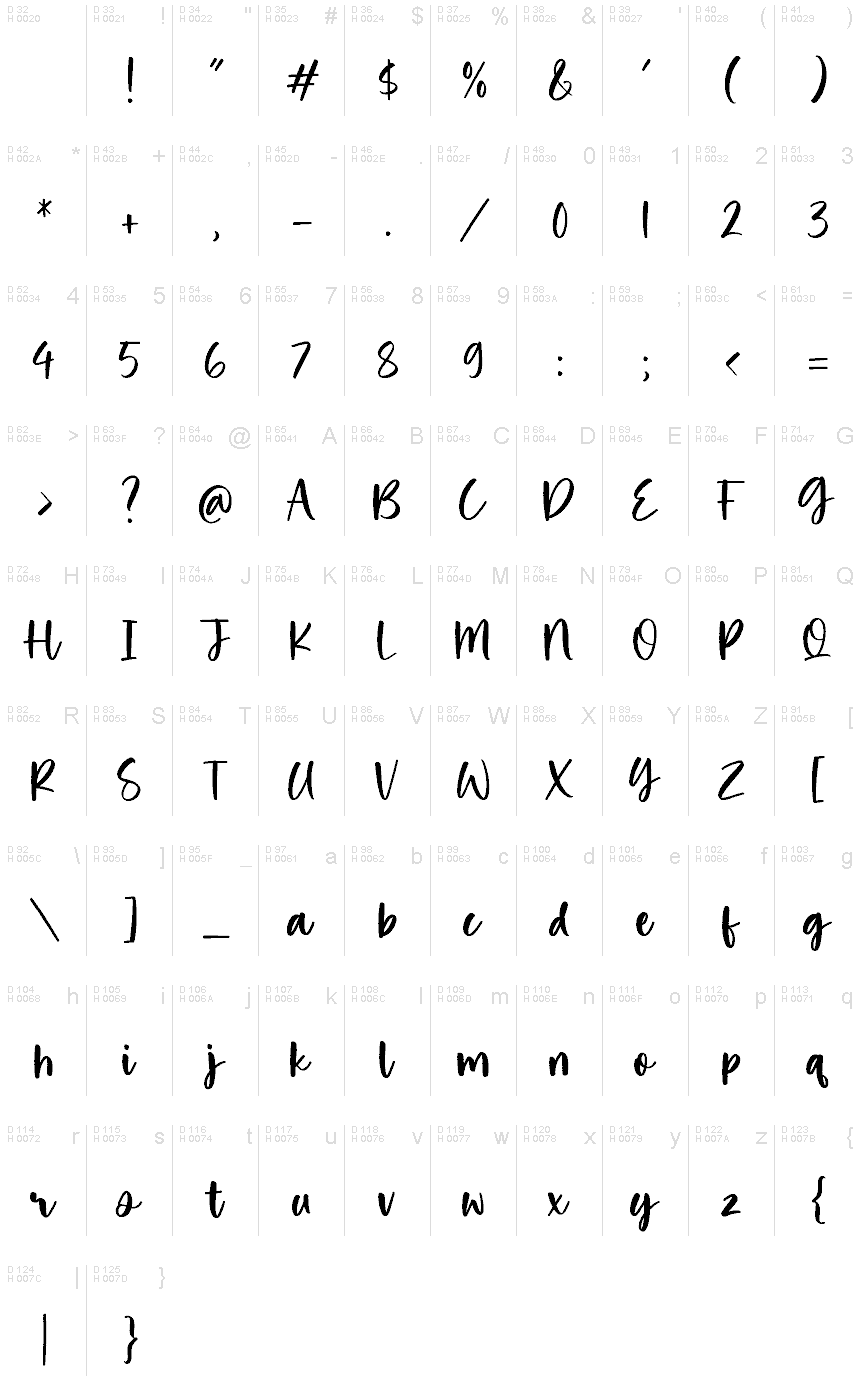
Making Cookies
Have you tried a fresh batch of homemade chocolate chip cookies lately? There’s nothing quite like a perfect cookie, and you can even make your baking projects look even better with this font from Timur Type.
Making Cookies font is a free handwritten font that will be perfect for your cooking, baking, branding, stationery, logo, invitation designs, social media posts, branding projects, packaging designs, blog and website headers, and so much more. Use it to add a stylish modern twist to your designs.